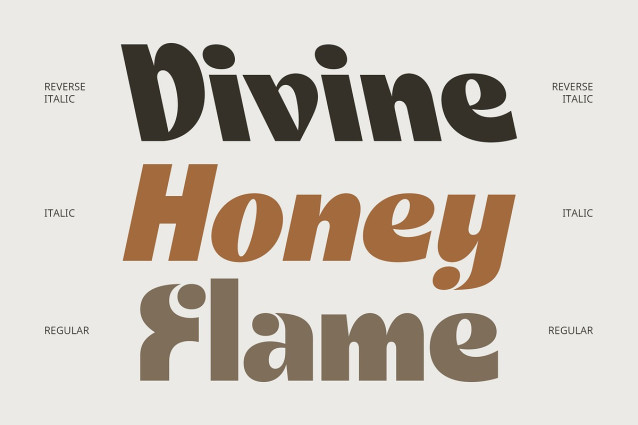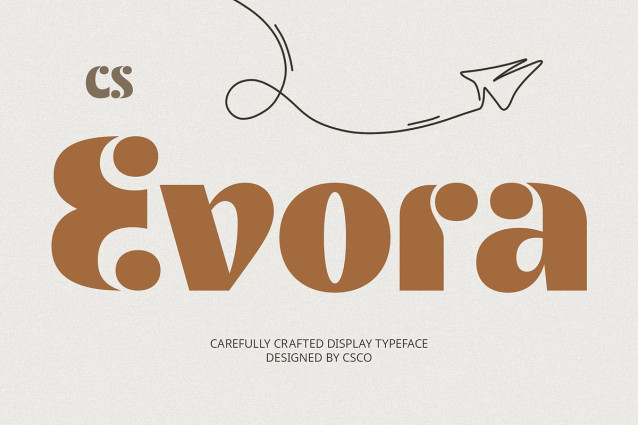
CS Evora Font
CS Evora Font is a modern display font that blends bold clarity with refined elegance, offering a look that is both confident and graceful. With its clean lines, balanced proportions, and stylish curves, it delivers a strong visual impact while maintaining a sense of sophistication and poise.
Crafted for High-End Aesthetic Appeal Every character in CS Evora is designed with precision and purpose, resulting in a font that feels luxurious yet contemporary. Its bold form adds weight and authority, while the smooth detailing softens the look, making it ideal for designs that require both power and elegance.
Ideal for Premium and Creative Design Projects CS Evora is perfect for fashion editorials, luxury branding, upscale packaging, modern magazines, or any design that seeks to express refinement and bold personality. Its versatile nature allows it to adapt across industries—from high fashion to creative studios—bringing a sleek, elevated tone to any visual identity.
Make a Statement with Confidence and Class Whether you’re creating a logo, headline, or sophisticated promotional content, CS Evora is a font that captures attention and communicates tasteful confidence. It’s the perfect choice for designers looking to blend modern aesthetics with timeless quality.